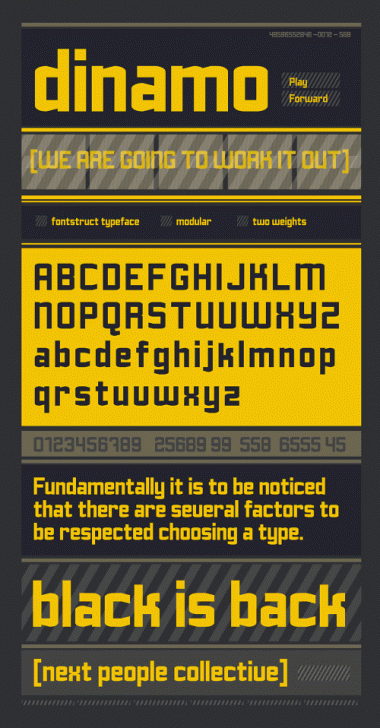
Great sample.
You just keep getting better and better. :)
Add diacritics and for me it's a perfect 10!
@Em42: I´m working on diacritics...but I have to find the best way to do it... Its a 2x1 brickscaled and there are some problems with it...so...hope in next days will be finished.
This is terrific. The upper case is nice but then you hit the lower case and it's wham a sock between the eyes.
I discern a pink dot on the horizon...
Indeed I draft the lowercase first and then extend to upper...but I think l/c has more personality
Dynamic stuff Axel. You've taken DIN to a whole new place. One super nit-picky thing, is there a reason for having the exclamation mark and the question mark fall below the baseline?
Afrojet: you´re right...it was an error...now it has the same height... THANK YOU!
I give you a full 10 anyway: I'm surprised this work is so underrated!
Looks great Axel.
most highly brilliant use of that scaling technique!
wonderful compositions on that roundings. super useful! thanks, just great work.
PLUS:
(attention! german!!)
>>Das Sample is mal wieder DER Kracher!
I'm really enjoying the wide range of styles you've been developing, Axel. Just to be nit-picky as well, I'd like to see the top of the "G" match the top of the "C" and "S." Otherwise, very clean fontstruction and specimen.
@Em42: Thanks...The diacritics are a headache...don´t like any of the posibilities I've tried...but i´m still thinking about it
@geneus: I,ve made the "G" the way you told me...it is on the "%" ...so what do you think?